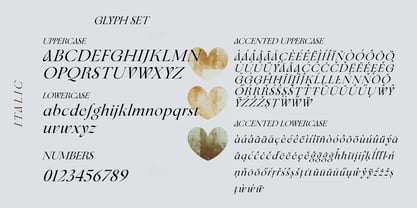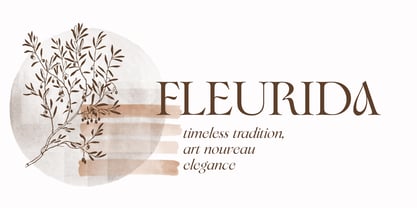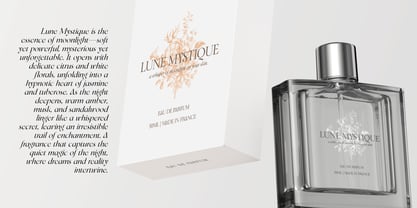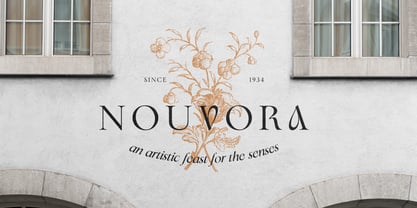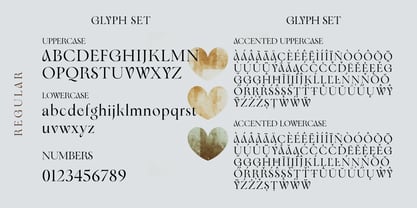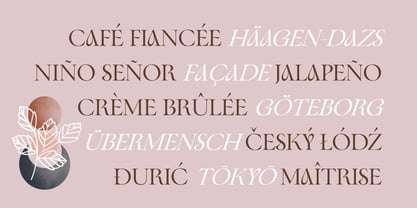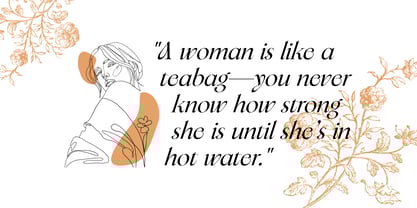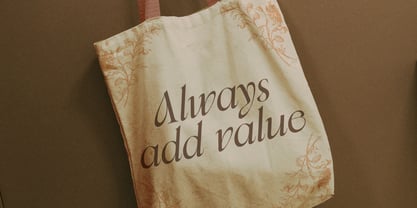
Fleurida
by Hazztype
The Fleurida Font Family was designed by Muhammad Hastian and published by Hazztype. Fleurida contains 2 styles and family package options. More about this family
Fleurida combines the classic structure of Garalde serifs with subtle Art Nouveau-inspired curves. Its letterforms feature refined, calligraphic strokes and delicate serifs, softened by organic, flowing lines that evoke a natural elegance. The font maintains a clean, timeless aesthetic while hinting at the artistic flair of the Art Nouveau era.
Ideal for luxury branding, editorial design, and sophisticated print projects, Fleurida strikes a balance between tradition and modernity. Its understated elegance makes it perfect for high-end publications, logos, and packaging.